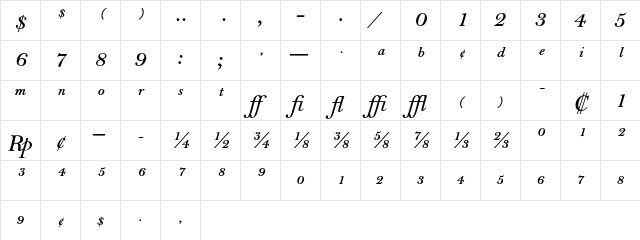
Bell MT Semi Bold Italic Expert Font Preview
Design Context for Bell MT Typeface
Bell MT offers clean, dependable letterforms without strong stylistic allegiance, making it a practical choice for designers who need flexibility. Its italic angle brings a sense of urgency and motion to the letterforms. The heavy weight commands attention and anchors typographic hierarchies.
Pro Tip: Try Bell MT for annotation and caption copy alongside an upright companion — the contrast in angle creates a dynamic but ordered typographic system.